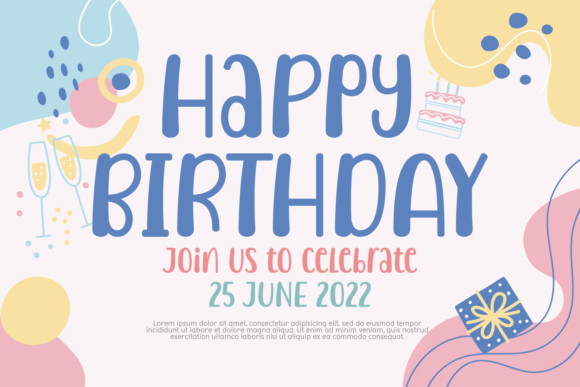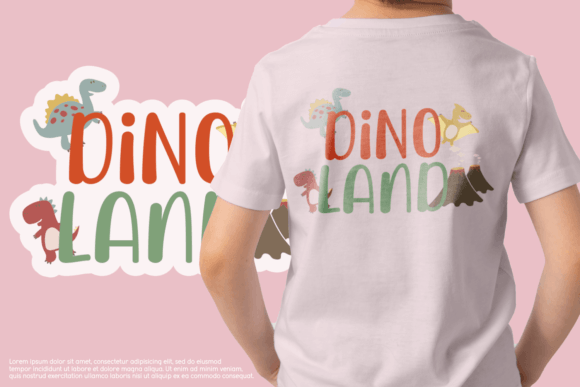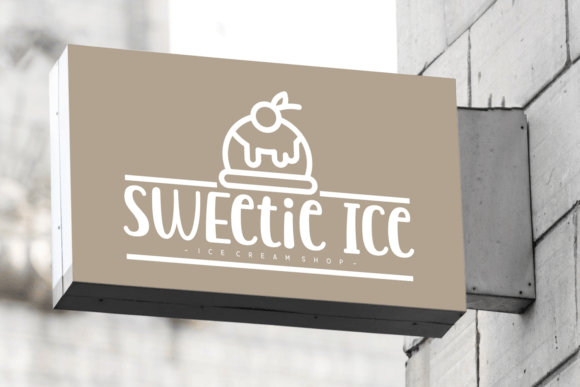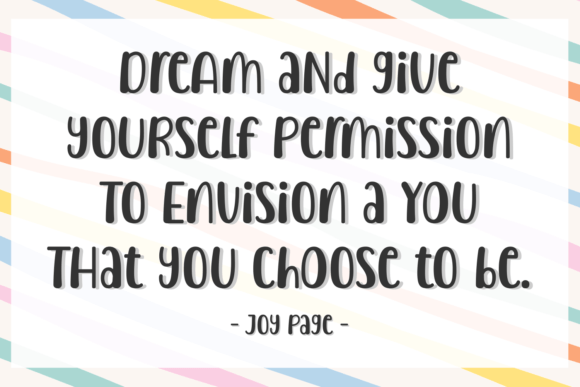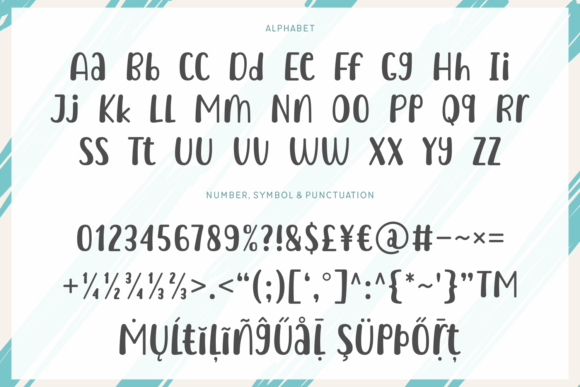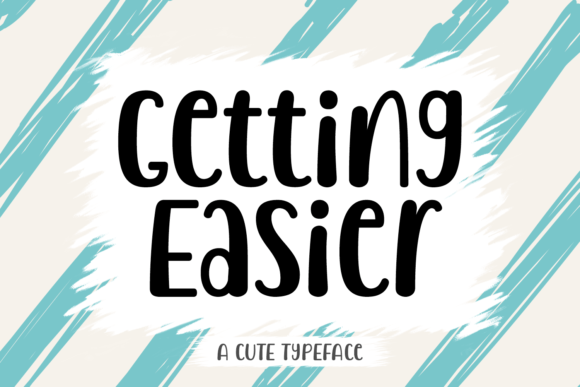
Discover the Charm of Getting Easier Font: Elevate Your Designs with Uniqueness
Are you on the hunt for a font that adds a touch of personality to your creative projects? Look no further than the Getting Easier font, a delightful addition to any designer’s toolkit. This adorable font is meticulously crafted to infuse your designs with a sense of uniqueness, making it perfect for a wide range of applications, from invitation cards and greeting cards to event banners and more.
The Allure of Getting Easier Font
Getting Easier is more than just a font; it’s an invitation to explore creativity and add a dash of charm to your work. Its captivating yet friendly demeanor makes it an excellent choice for designers and crafters looking to leave a lasting impression. Whether you’re working on a formal invitation, a casual greeting card, or a vibrant event banner, this font is sure to enhance your design with its distinctive flair.
Key Features of Getting Easier Font
- Unique and Captivating: The Getting Easier font boasts a unique design that captures attention and adds a fresh spin to your creations.
- PUA Encoded: Being PUA (Private Use Area) encoded, this font offers easy access to all glyphs and swashes, allowing for greater flexibility and creativity in your designs.
- Versatile: Suitable for a variety of projects including invitation cards, greeting cards, event banners, and any other design that could benefit from a personal touch.
- User-Friendly: The font’s design ensures that it’s not only beautiful but also easy to read, making it perfect for both digital and print applications.
Applications of Getting Easier Font
The versatility of the Getting Easier font makes it an invaluable asset for designers and crafters across various platforms. Here are some of the top applications:
- Invitation Cards: Stand out with custom wedding invitations, birthday invites, or any other special occasion announcement.
- Greeting Cards: Add a personal touch to your greeting cards for holidays, birthdays, or just because.
- Event Banners: Create eye-catching banners for events like weddings, parties, or corporate gatherings.
- Digital Content: Enhance your blog posts, social media graphics, or website content with a unique typographic style.
Tips for Maximizing the Potential of Getting Easier Font
To truly leverage the charm of the Getting Easier font, consider the following tips:
- Mix and Match: Combine the font with other design elements or fonts to create a layered look that adds depth to your design.
- Play with Sizes: Experiment with different font sizes to emphasize certain parts of your text or to create a visually appealing hierarchy.
- Utilize Swashes: Take full advantage of the PUA encoded features to incorporate swashes and glyphs that enhance your design’s aesthetic.
- Keep it Simple: Sometimes, less is more. Allow the font’s unique characteristics to shine by keeping your design clean and uncluttered.
The Getting Easier font is a delightful discovery for anyone looking to infuse their designs with a sense of uniqueness and charm. Its captivating design, combined with the practical benefits of being PUA encoded, makes it a versatile tool for a wide range of creative projects. Whether you’re a professional designer or a hobbyist crafter, this font is sure to become a favorite in your collection. So, why wait? Dive into the world of Getting Easier font today and watch your designs transform with its adorable and friendly aesthetic.